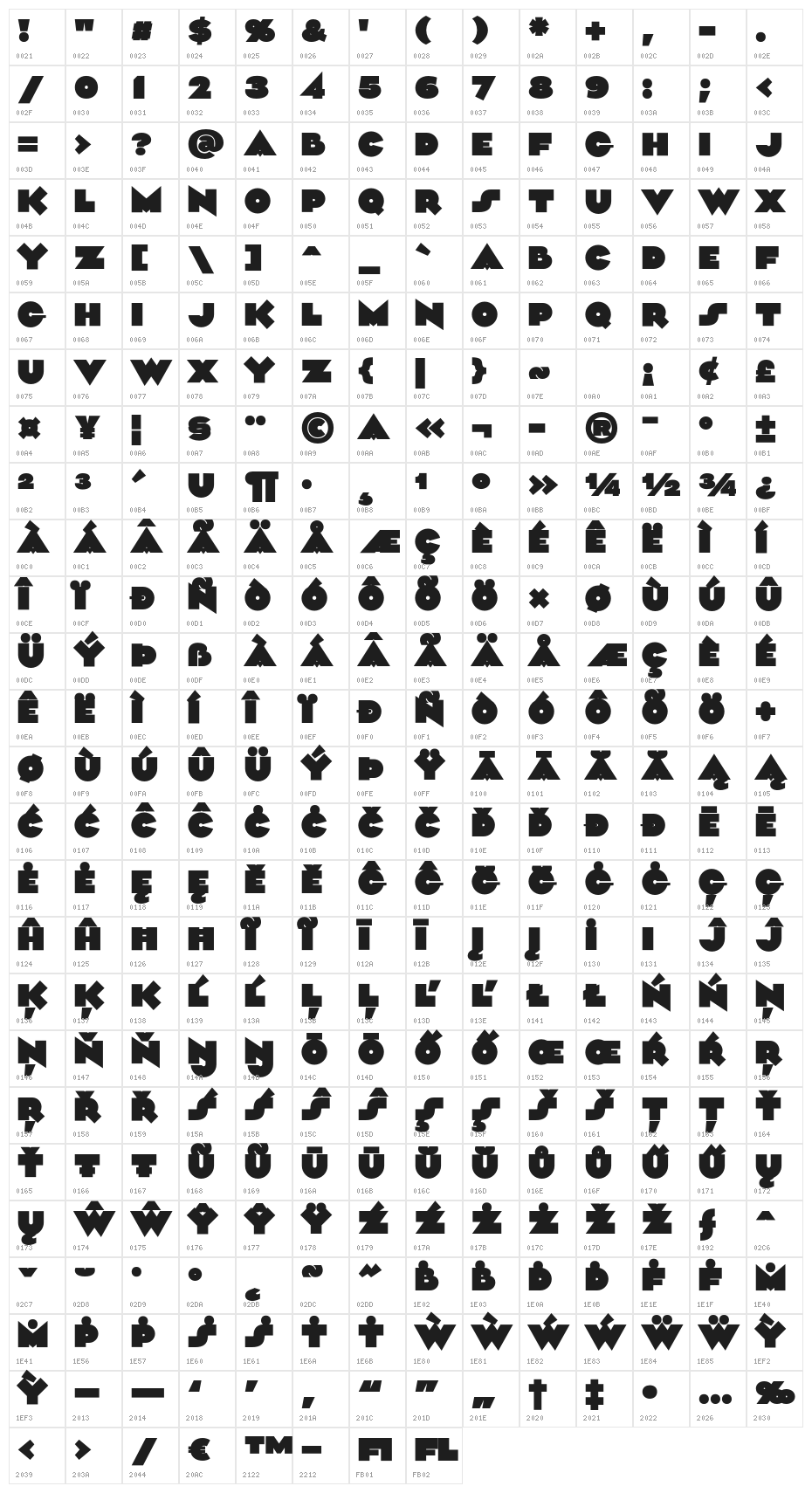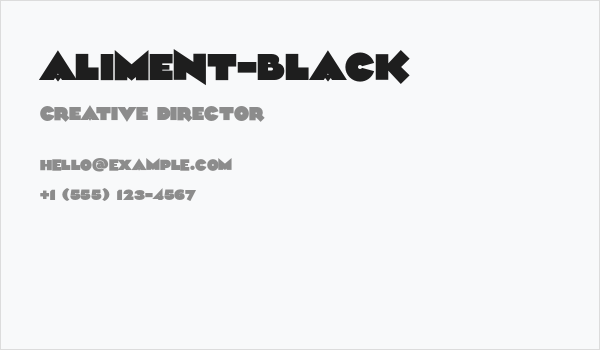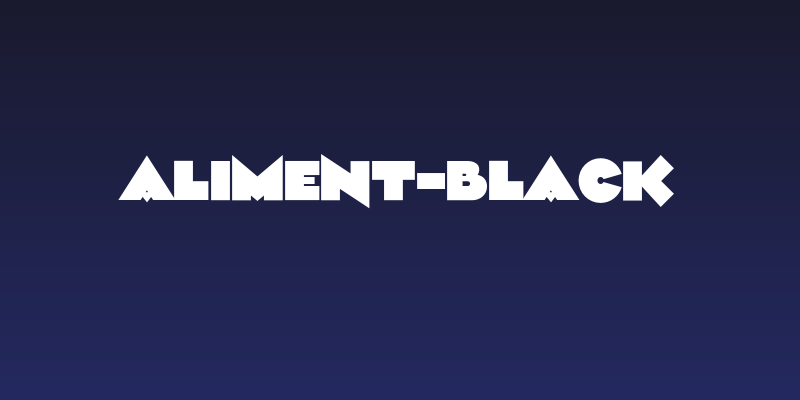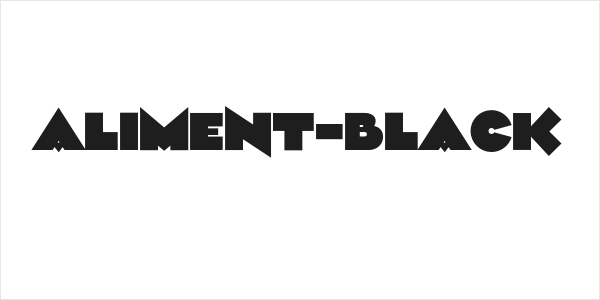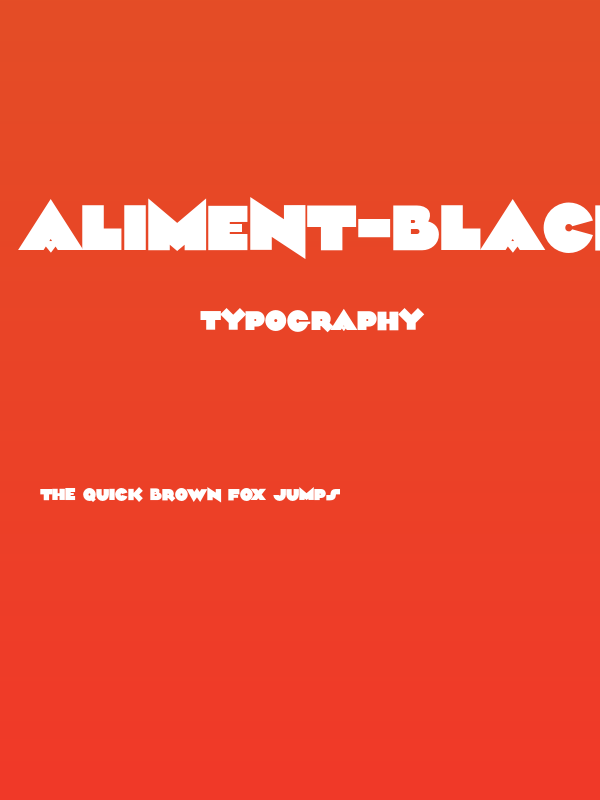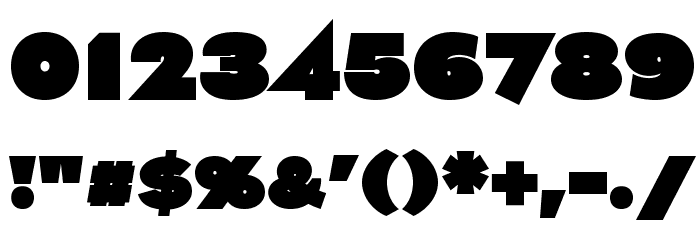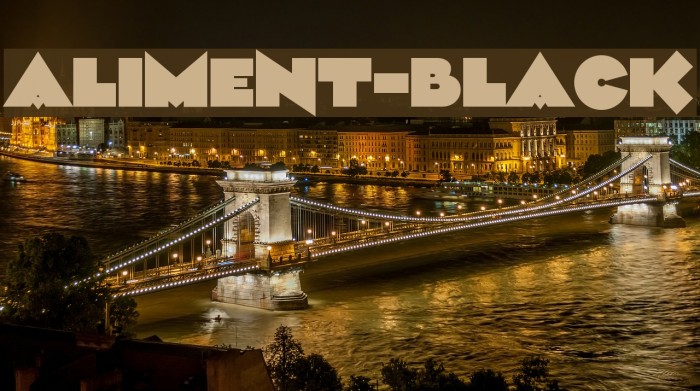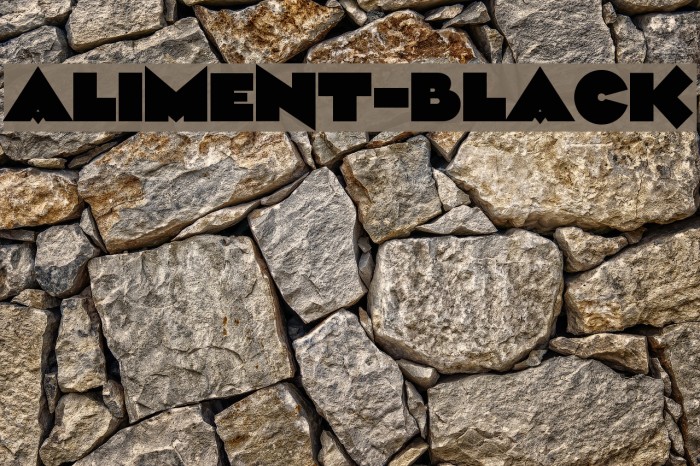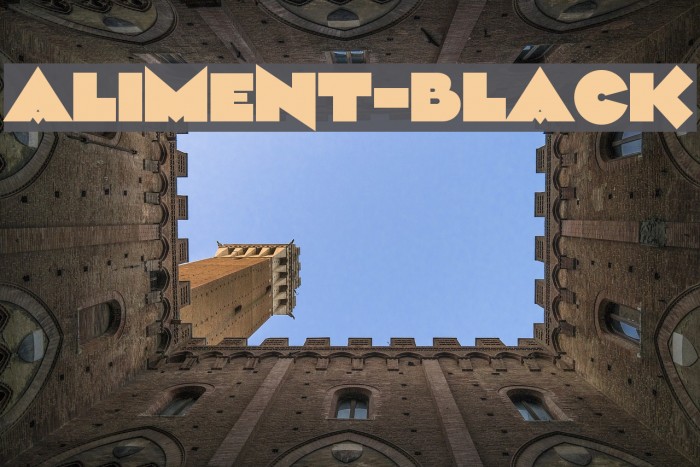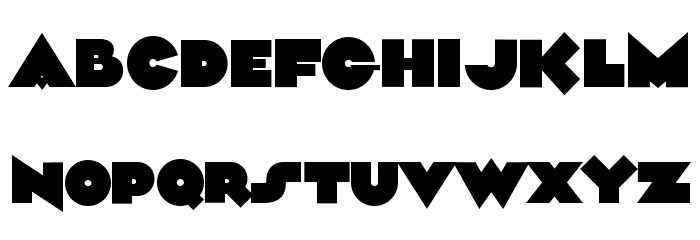
Aliment-Black Font
Aliment-Black Description
This bold and striking font features a geometric and angular design, characterized by its sharp edges and unique cutouts within the letterforms. The uppercase letters are particularly prominent, with a strong presence that commands attention. The numerals and special characters maintain the same boldness and geometric style, ensuring consistency across all characters. The font's design is modern and eye-catching, making it suitable for projects that require a strong visual impact.
Måns Grebäck - www.mansgreback.com
| Proposed Projects | Ideal for branding, poster design, and headlines where a strong, modern aesthetic is desired. |